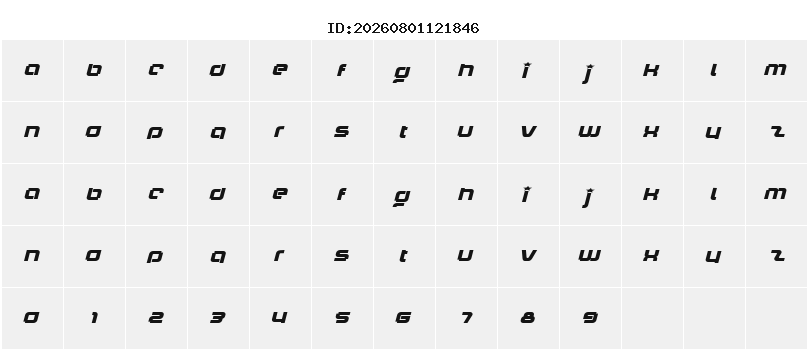
LHF Brianna SLANT Preview
• Font Name: LHF Brianna SLANT
• Font ID: LHF Brianna SLANT
• Full Font Name: LHF Brianna SLANT
• PostScript Name: LHFBriannaSLANT
About LHF Brianna SLANT.ttf
LHF Brianna SLANT.ttf is a modern, elegant sans-serif font designed for ultimate readability and visual harmony. Perfect for branding, headlines, web design, and print materials.